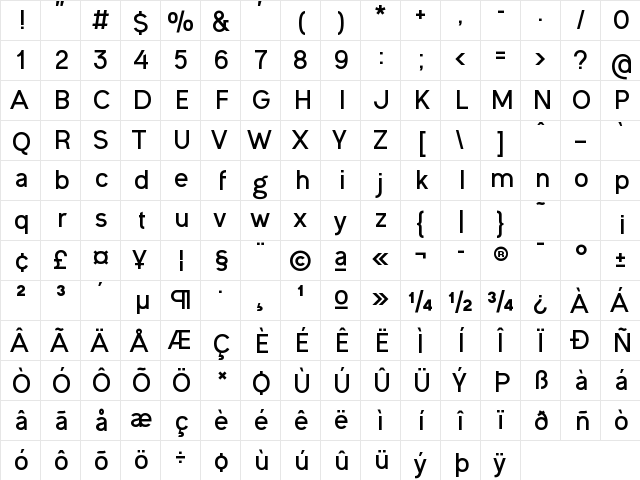
Ogonek Bold
Design Context for Ogonek Typeface
Ogonek offers clean, dependable letterforms without strong stylistic allegiance, making it a practical choice for designers who need flexibility. The heavy weight commands attention and anchors typographic hierarchies.